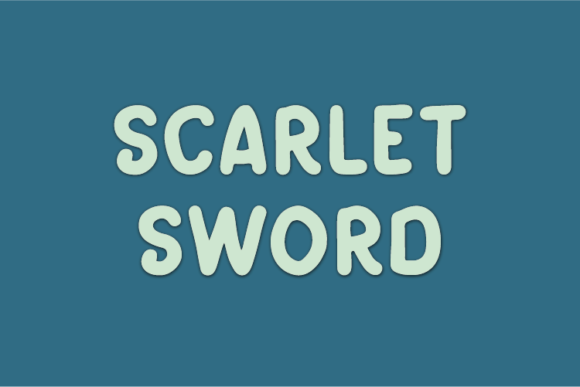
Scarlet Sword Font: Elevate Your Designs with a Unique Handwritten Style
The world of typography is vast and diverse, with numerous fonts available to cater to various design needs. Among these, the Scarlet Sword Font stands out for its adaptability, cleanliness, and unique handwritten style. In this article, we’ll delve into the features, benefits, and applications of the Scarlet Sword Font, exploring how it can elevate your designs and unlock a world of creative possibilities.
What is Scarlet Sword Font?
Scarlet Sword Font is a modern, handwritten font designed to be both clean and adaptable. Its natural and unique style makes it incredibly fitting for a wide range of designs, from creative projects to professional applications. The font’s versatility is one of its most notable features, allowing designers to use it in various contexts without compromising on aesthetics or readability.
- Adaptable: Scarlet Sword Font is designed to be flexible and can be used in multiple design scenarios.
- Clean: The font boasts a clean and clear design, ensuring that your text remains legible and visually appealing.
- Handwritten: With its handwritten style, Scarlet Sword Font adds a personal touch to your designs, making them stand out from the crowd.
- Unique: The font’s distinctive style sets it apart from more traditional fonts, giving your designs a unique edge.
Design Applications of Scarlet Sword Font
The Scarlet Sword Font is incredibly versatile, making it suitable for a wide range of design applications. Here are some of the areas where this font can shine:
- Branding and Logo Design: Use Scarlet Sword Font to create unique and memorable logos that reflect your brand’s personality.
- Digital Marketing Materials: Enhance your website, social media posts, and email marketing campaigns with the font’s clean and modern aesthetic.
- Print Materials: From brochures and flyers to business cards and posters, Scarlet Sword Font can elevate your print designs with its distinctive style.
- Packaging Design: Add a personal touch to your product packaging with this font, making your products stand out on store shelves.
- Web Design: Use Scarlet Sword Font to create visually appealing website headers, titles, and content that engage your audience.
Benefits of Using Scarlet Sword Font
So, why choose Scarlet Sword Font for your design projects? Here are some benefits that make it an excellent choice:
- Enhanced Readability: The font’s clean design ensures that your text is easy to read, even in smaller sizes.
- Unique Aesthetic: Scarlet Sword Font’s handwritten style gives your designs a distinctive look that sets them apart from more traditional fonts.
- Time-Saving: With its versatility, you can use Scarlet Sword Font across multiple design projects, saving you time and effort in selecting and pairing fonts.
Tips and Tricks for Using Scarlet Sword Font
To get the most out of Scarlet Sword Font, here are some tips and tricks to keep in mind:
- Pair it with Neutral Fonts: Combine Scarlet Sword Font with neutral fonts to create a balanced and harmonious design.
- Experiment with Colors: Play with different colors to find the perfect match for your design and brand.
- Adjust Font Sizes: Experiment with different font sizes to create visual hierarchy and emphasize key elements.
- Use it for Headings and Titles: Take advantage of Scarlet Sword Font’s unique style by using it for headings and titles, adding a personal touch to your designs.
In conclusion, the Scarlet Sword Font is an excellent choice for designers looking to add a unique and adaptable handwritten font to their arsenal. Its clean design, natural style, and versatility make it suitable for a wide range of design applications. By incorporating Scarlet Sword Font into your design projects, you can elevate your designs, enhance readability, and create a lasting impression on your audience.